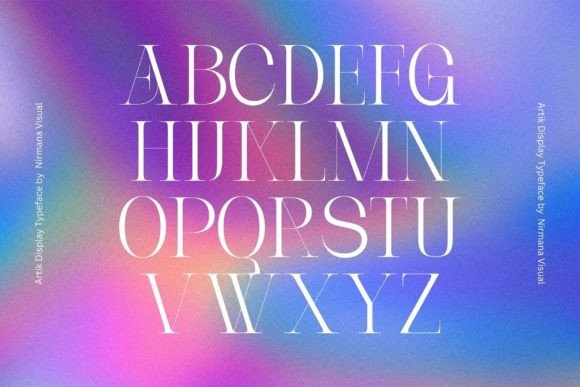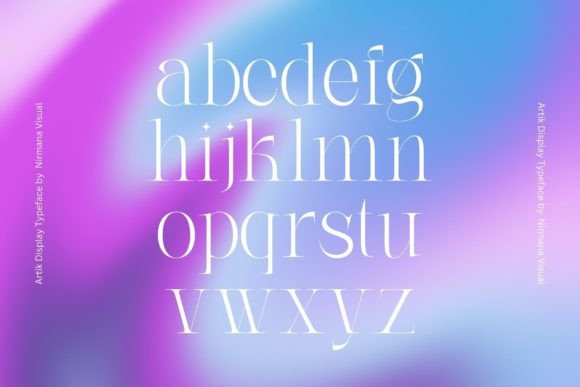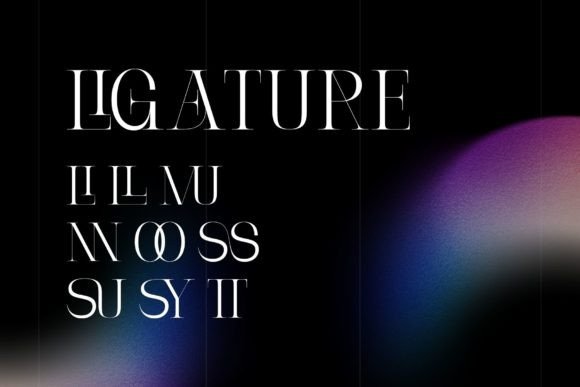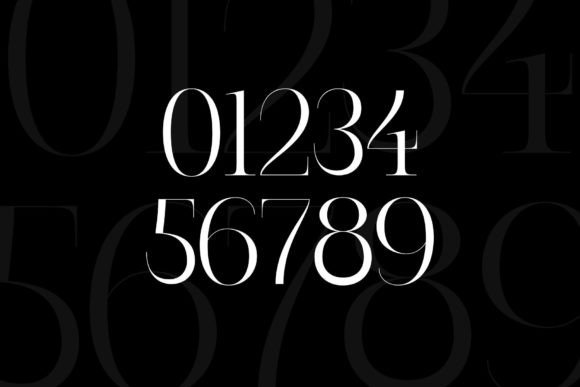
Introduction to Artik Font
Artik is an exquisite serif display font.
It offers beautiful typographic harmony for a diversity of design projects, including logos and branding, social media posts, advertisements, and product designs .
Key Features of Artik Font
Why Choose Artik Font?